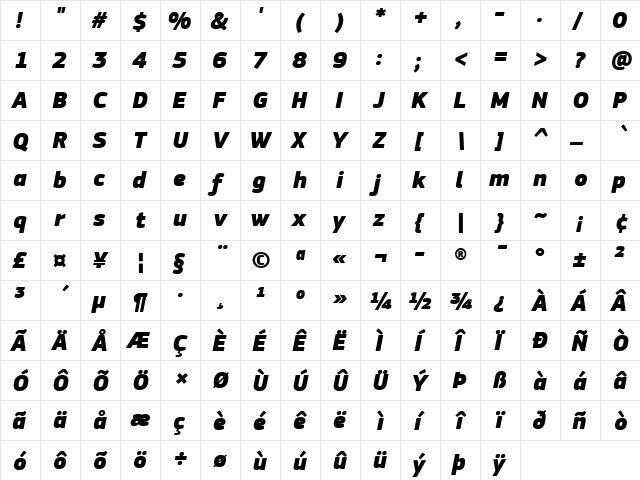
PF Square Sans Pro Extra Black Italic
Design Context for PF Square Sans Pro Typeface
PF Square Sans Pro is a composed and adaptable typeface that performs quietly and consistently across a wide range of design contexts. Its italic angle brings a sense of urgency and motion to the letterforms.
Pro Tip: Try PF Square Sans Pro for annotation and caption copy alongside an upright companion — the contrast in angle creates a dynamic but ordered typographic system.